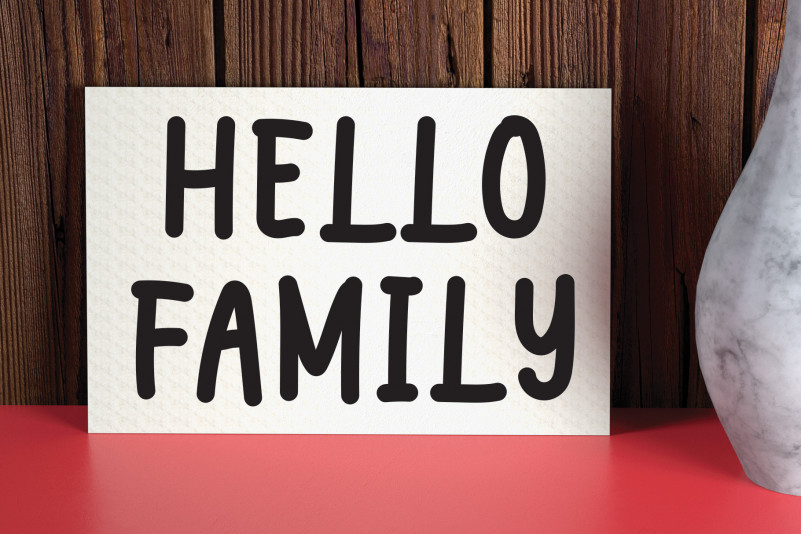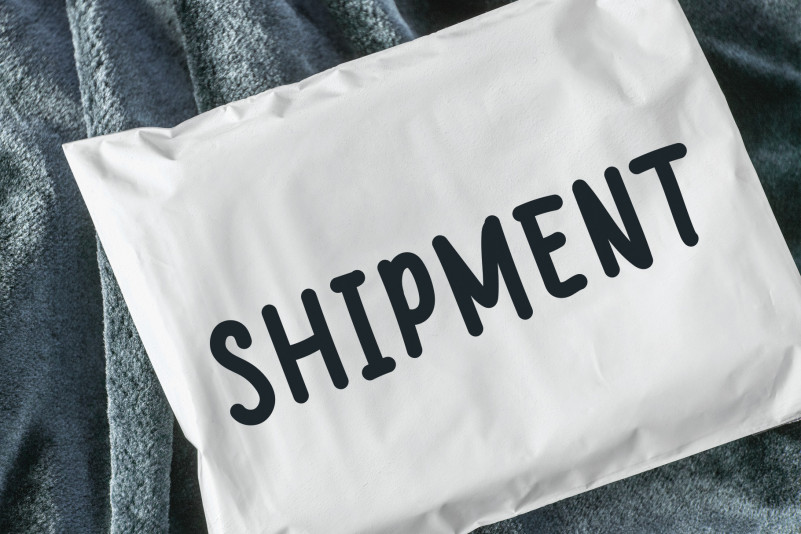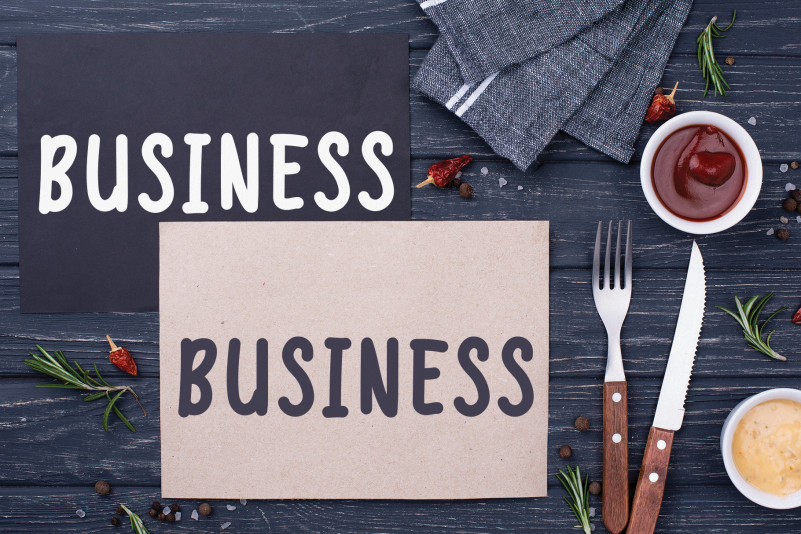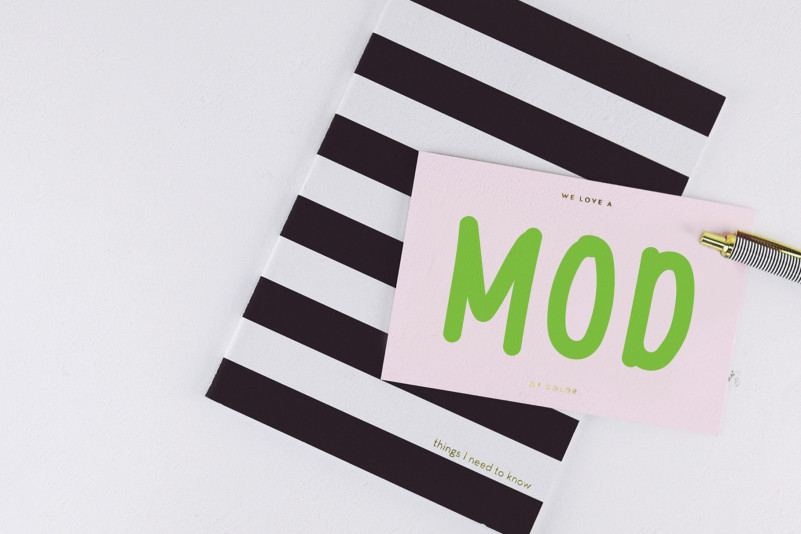
Welcome December Display Font
Welcome December Display Font is a cute and quirky handwritten font. This font will look outstanding in any context, whether it’s being used on busy backgrounds or as a standalone headline!